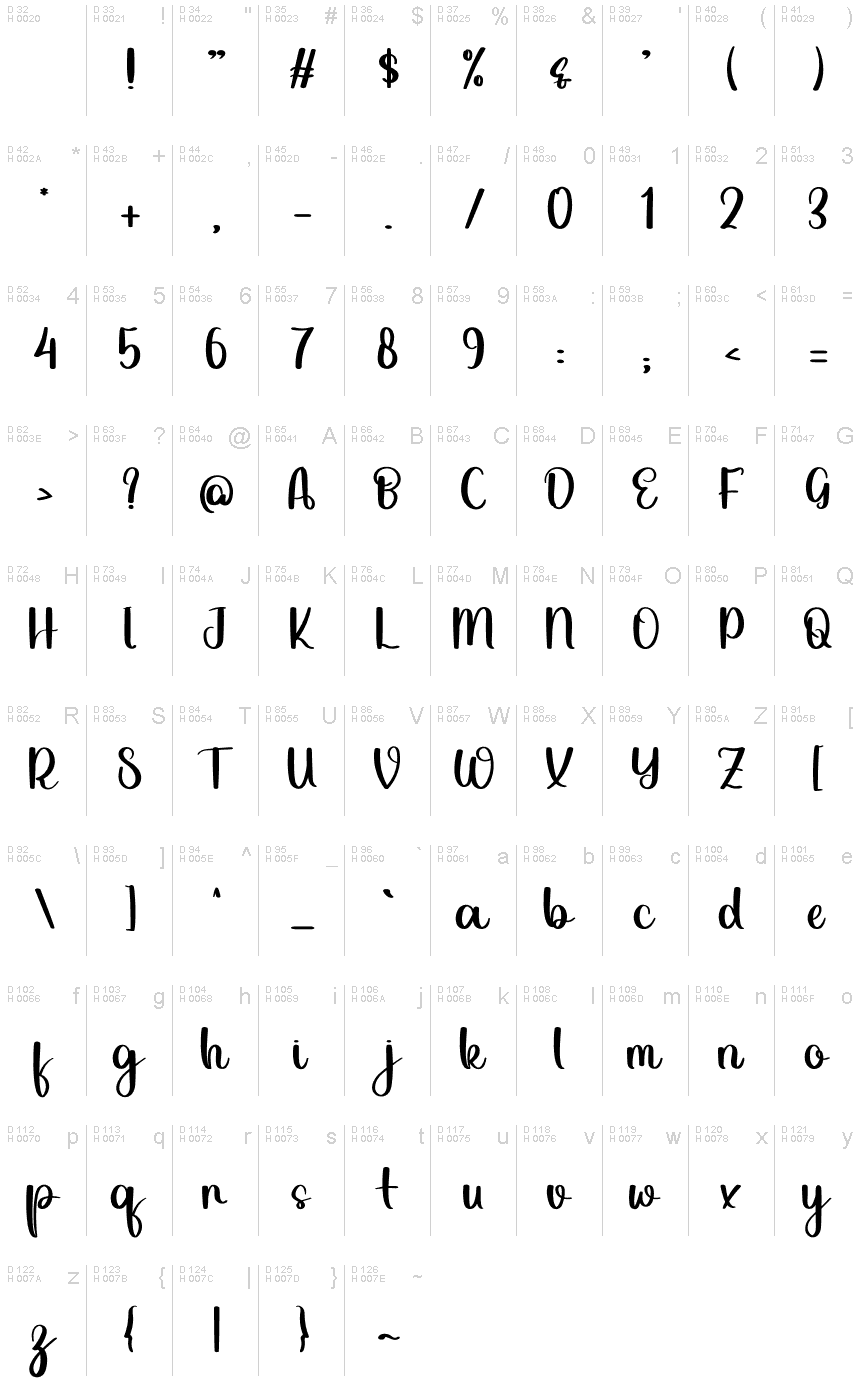
Chicken Wrap
Chicken Wrap, designed by Inermedia Studio, is a unique handwritten font perfect for projects that require an organic, personalized touch. Whether you're creating logos, invitations or social media posts, Chicken Wrap will add a creative flair to your design.